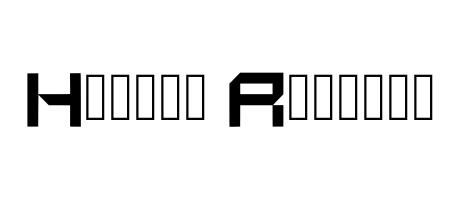
Hannah
By Tobias Verheecke
Hannah Regular is a bold, geometric sans-serif font. Its strong, blocky characters possess a futuristic, almost robotic feel. The letters are distinctly separated, giving a clean, uncluttered look. The consistent weight and straight lines make it highly legible, even in minimalist designs. Its simplicity makes it adaptable to various styles.